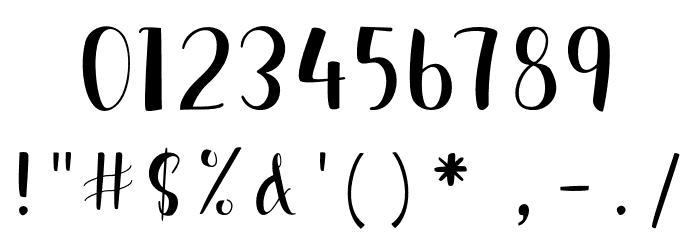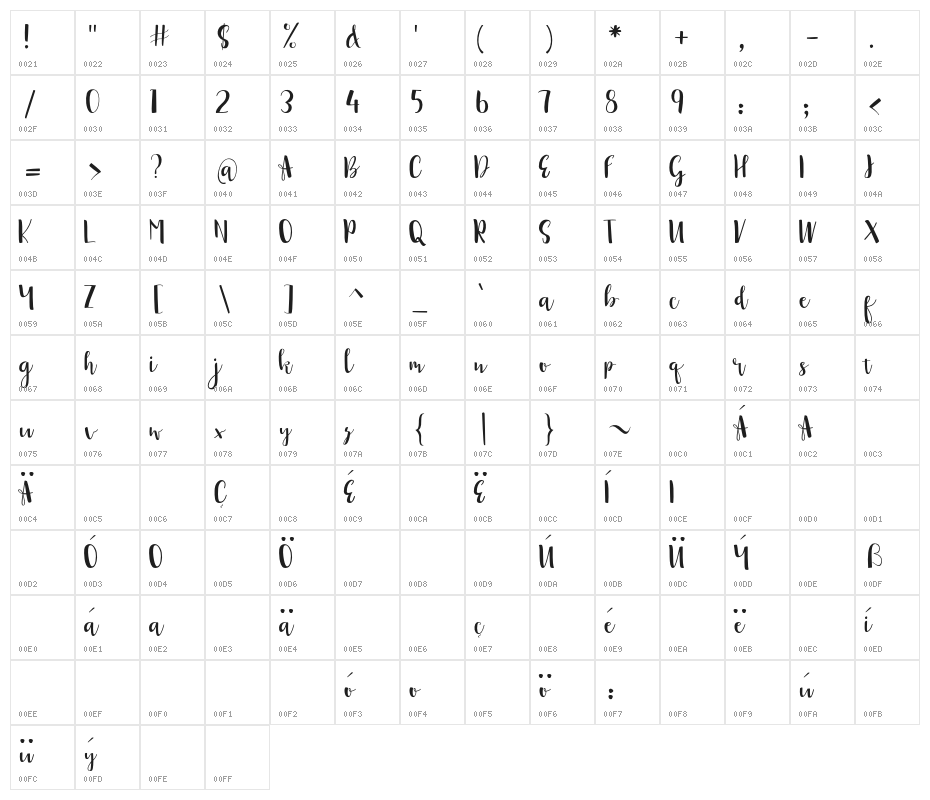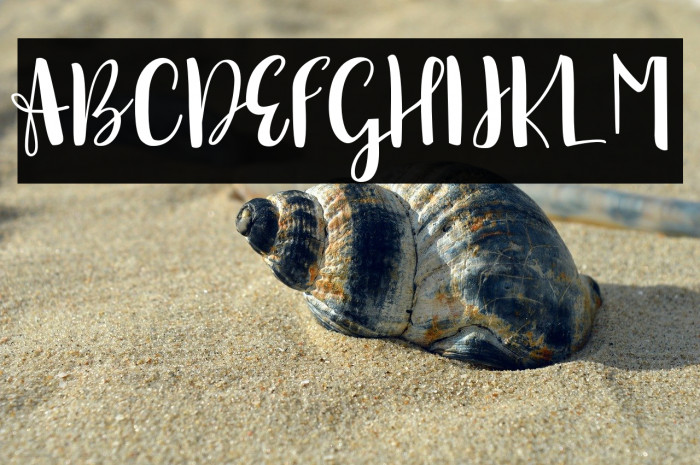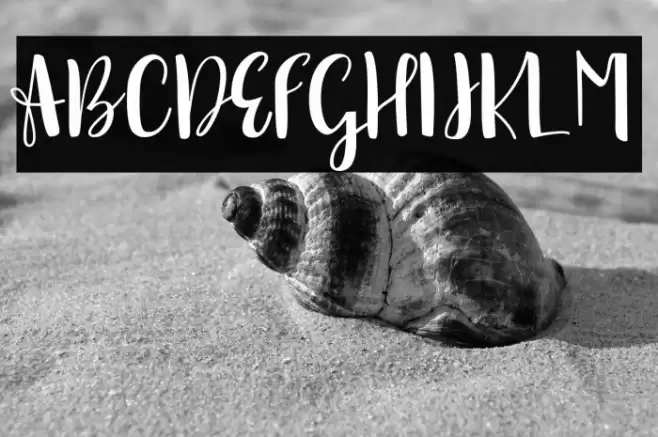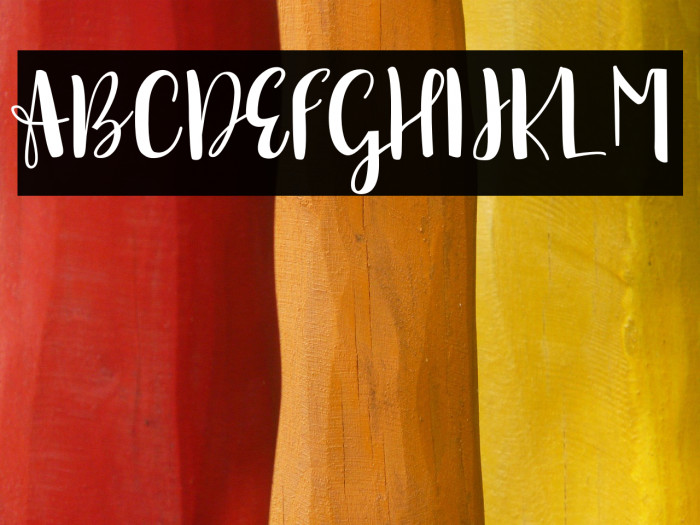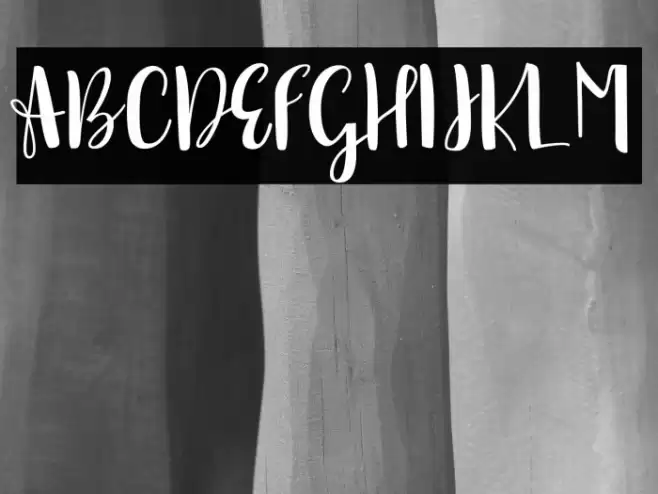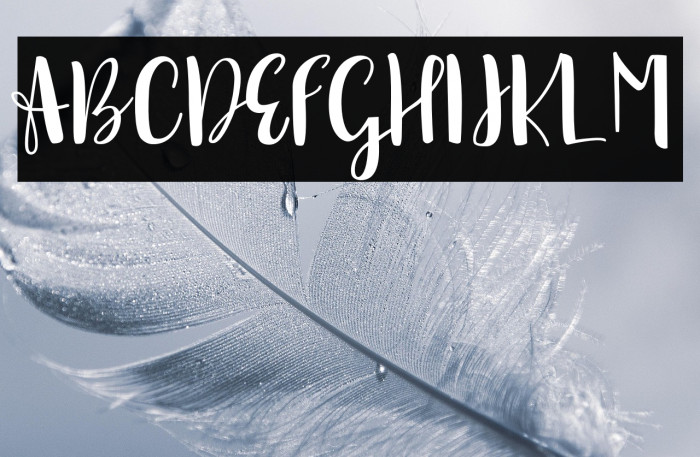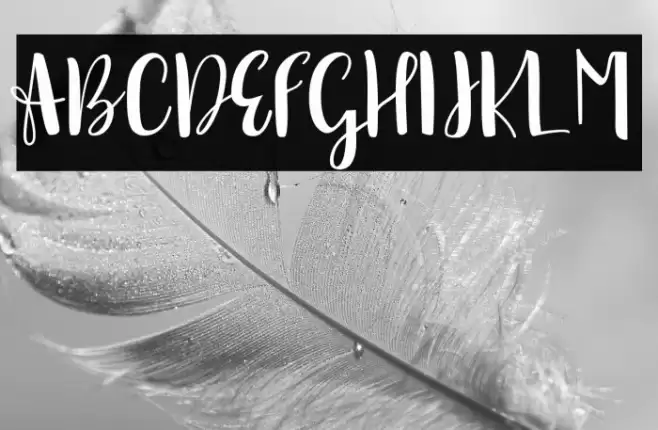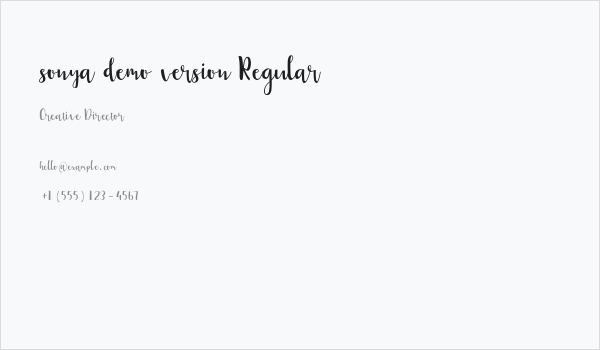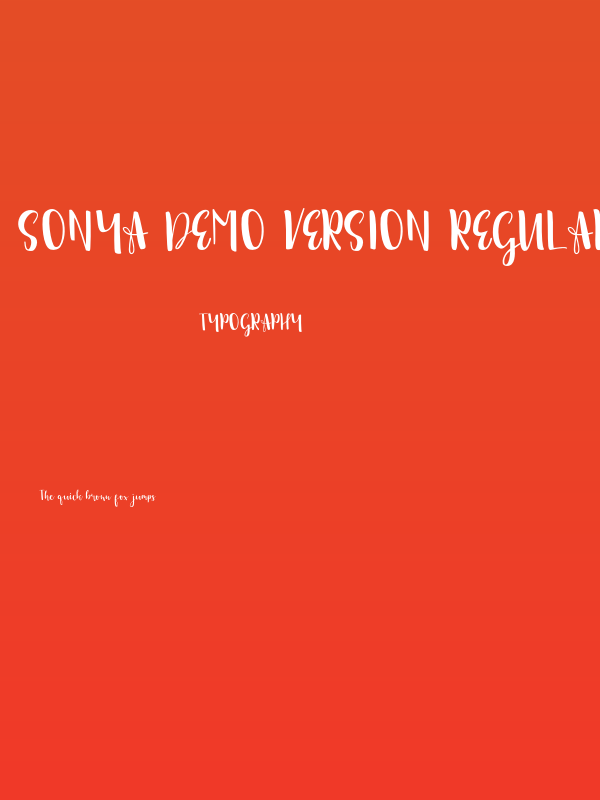
sonya demo version Regular Font
sonya demo version Regular Description
This font features a playful and dynamic script style with a handwritten feel. The uppercase letters are bold and expressive, with varying stroke widths that add a sense of movement and energy. The lowercase letters maintain a consistent flow, with elegant loops and curves that enhance its handwritten aesthetic. Numbers are clear and maintain the same playful style, making them easily readable. Special characters are well-integrated, complementing the overall design. The font's unique character and lively appearance make it suitable for creative and informal projects.